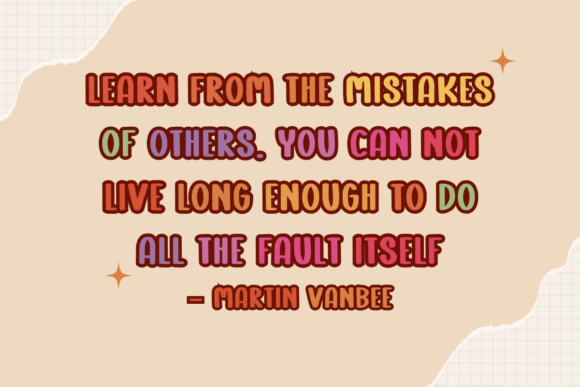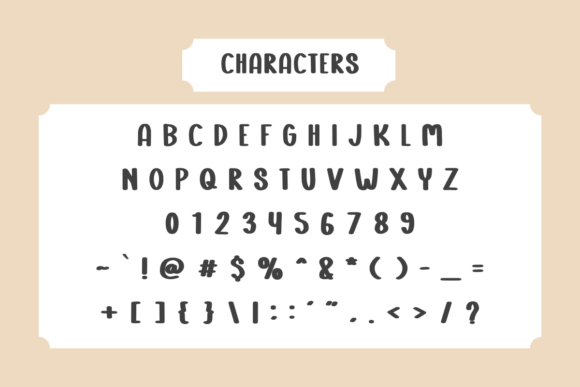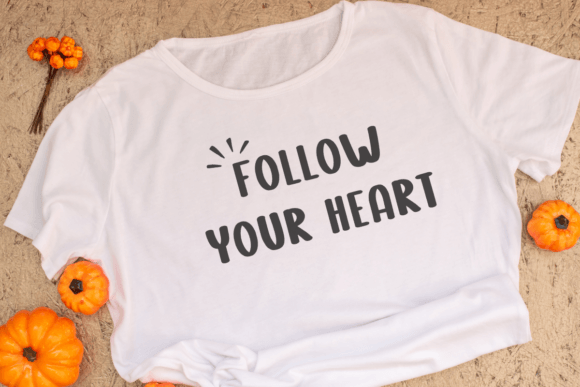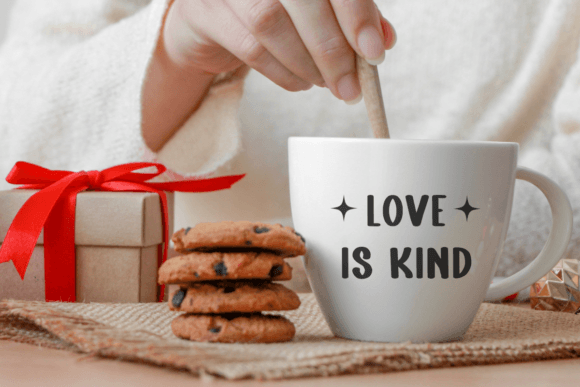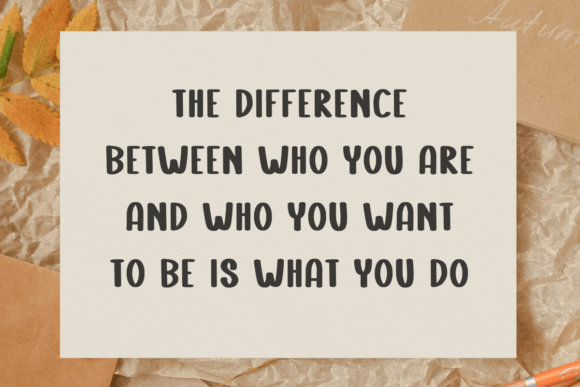
Introduction to Design Classic Font
Remember that moment when you’re brainstorming ideas for a new project, and a single font sparks the entire concept? For many designers, it’s a moment of pure joy and excitement. The right font can elevate a design from good to great, and today, we’re shining the spotlight on the Design Classic Font – a high-quality sans serif font that’s about to become your new best friend.
Whether you’re working on a creative project, crafting a logo, or adding a touch of personality to your branding, the Design Classic Font is an invaluable design resource. With its unique and beautiful touch, every letter comes alive, making it the perfect choice for designers who crave a high-quality font that adds an extra layer of sophistication to their work.
Key Features of Design Classic Font
- High-quality vector graphics, perfect for use in various creative projects
- Unique, elegant design that sets it apart from other fonts, perfect for adding a touch of sophistication to any creative project
Honest Review: Design Classic Font
As a designer, I’m always on the lookout for high-quality design resources that can elevate my creative projects. Recently, I stumbled upon the Design Classic Font, and I’m excited to share my thoughts on this fantastic find.
- Clear and legible typography: The font is incredibly easy to read, making it perfect for body text in any design project.
- Limited font styles: While the font is well-designed, it’s a bit basic in terms of font styles, which might limit its use in more complex projects.
- No bold or italic variations: This can make it difficult to use the font in situations where bold or italic text is necessary.
Overall, I’m impressed with the Design Classic Font. It’s a great addition to any designer’s toolkit, and its free download makes it a must-have for anyone working on a creative project. While it may have some limitations, its clear typography and transparent background make it a valuable resource for any designer.
Design Classic Font
For the best results, use Design Classic Font on a transparent background to give your design a clean and modern look. You can also use it in combination with other high-quality design resources to create a cohesive and visually appealing design.
Design Classic Font is perfect for creative projects such as brochures, posters, and business cards. It’s also a great choice for web design, logos, and other visual identity materials. With its free download option, you can easily integrate it into your design workflow and enhance your creative project with a touch of elegance and sophistication.